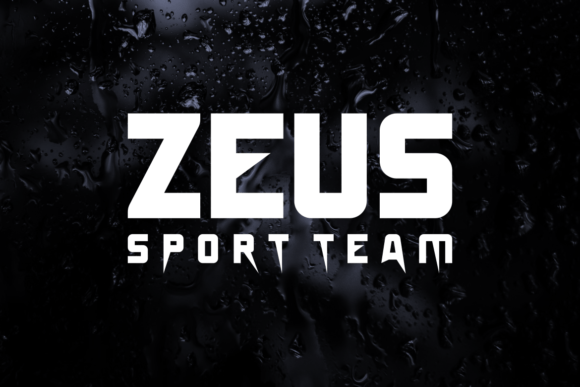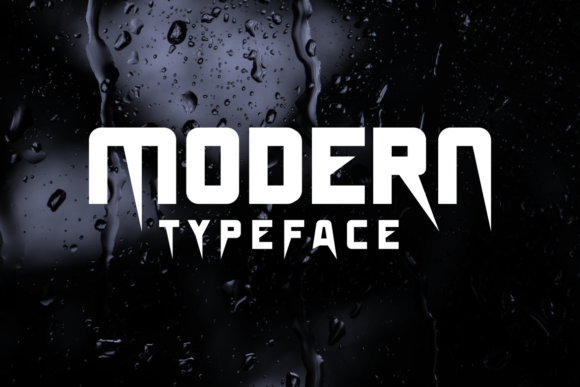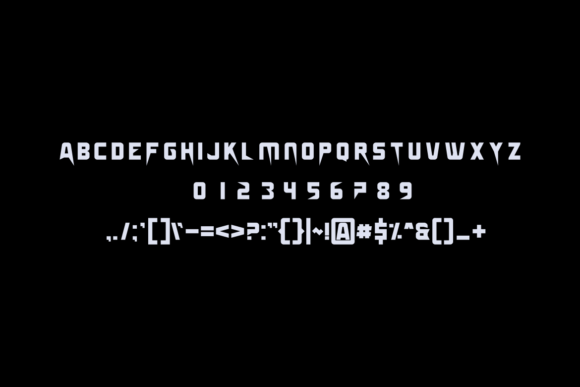
Introduction to Kastink Font
Kastink – Font Modern Font is a bold and authentic display font.
The font is suitable for any branding project like logo, t-shirt printing, esport, and many more outstanding in a wide range of contexts.
Key Features of Kastink Font